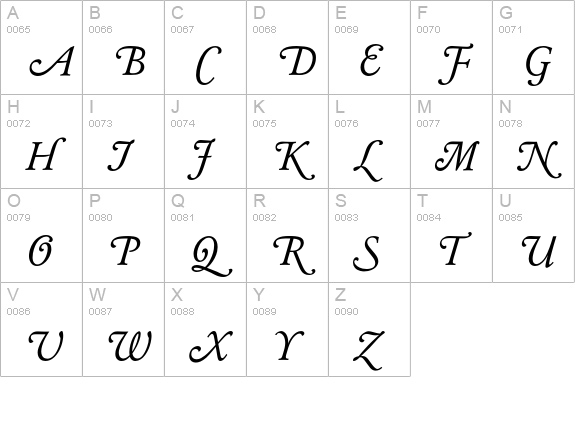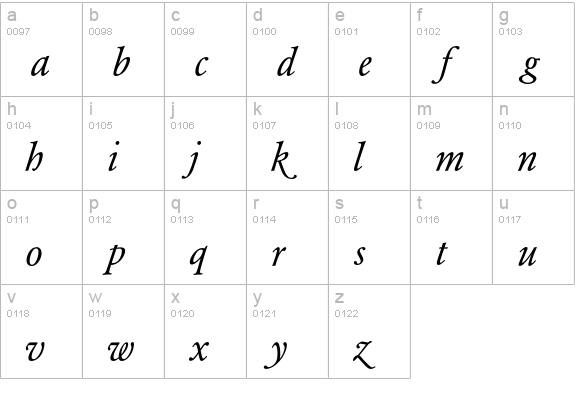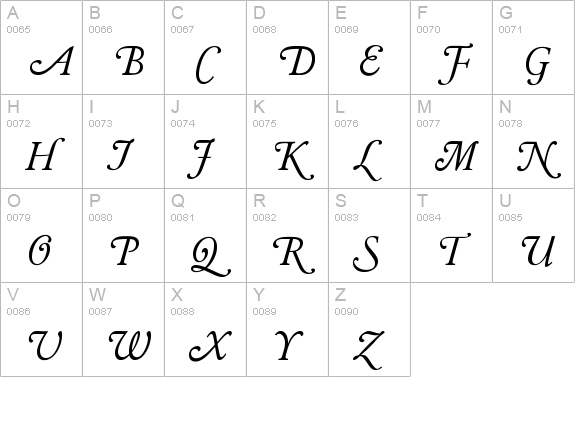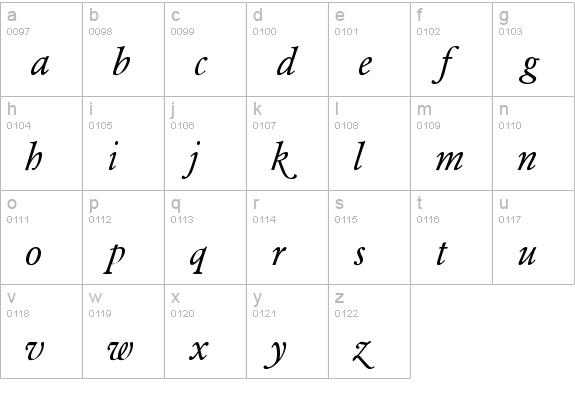
Garamond ExpBQ ItalicSwash Font Details
Garamond ExpBQ ItalicSwash is a stunning font that exudes elegance and sophistication. Its graceful, flowing curves and delicate swashes add a touch of whimsy and charm to any design. This font is perfect for creating captivating headlines, stylish logos, and enchanting invitations. The Garamond ExpBQ ItalicSwash font features a unique combination of boldness and grace, making it a versatile choice for both print and digital projects. Its italicized form adds a touch of flair and personality to your designs, while the swashes add a playful and artistic element. One of the greatest advantages of this font is that it is freely available to download at FontsMarket.com. You can easily access and enjoy this exquisite typeface without any cost. This makes it an ideal choice for designers, students, and anyone looking to add a touch of sophistication to their projects without breaking the bank. Whether you're working on a branding project, creating eye-catching advertisements, or designing elegant wedding invitations, Garamond ExpBQ ItalicSwash is sure to leave a lasting impression. Its timeless beauty and versatility make it a must-have font in any designer's toolkit. So, why wait? Download this beautiful font for free at FontsMarket.com and let your creativity soar.